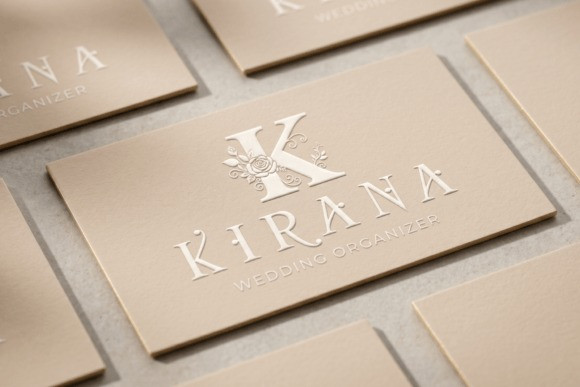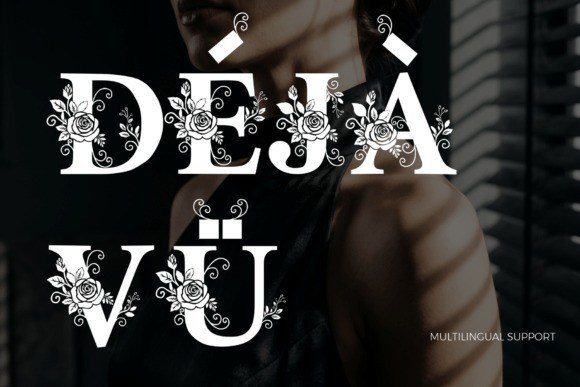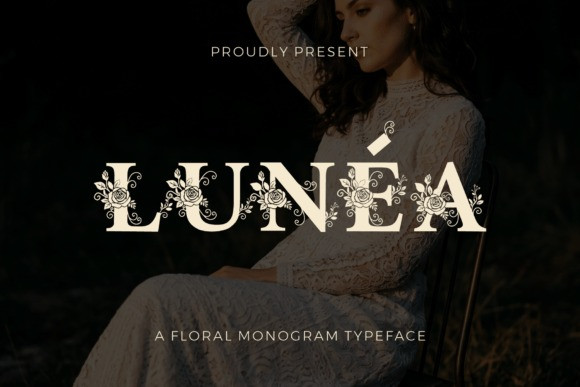
Lunéa Font
Lunéa Font – Imbued with natural charm and artistic excellence, the Lunea Floral Monogram Font surpasses raw beauty to redefine decorative typography. With the enchanting allure of rose petals brought to life in a clean digital format, Lunea exudes a sense of grandeur and sophistication that echoes the timeless charm of European estates. Whether employed for heart-stealing wedding signage, gallery exhibition text, or luxury brand logos, Lunea establishes visual ascendency through its harmonious blend of tradition and modernity, generating an atmosphere of refined elegance.